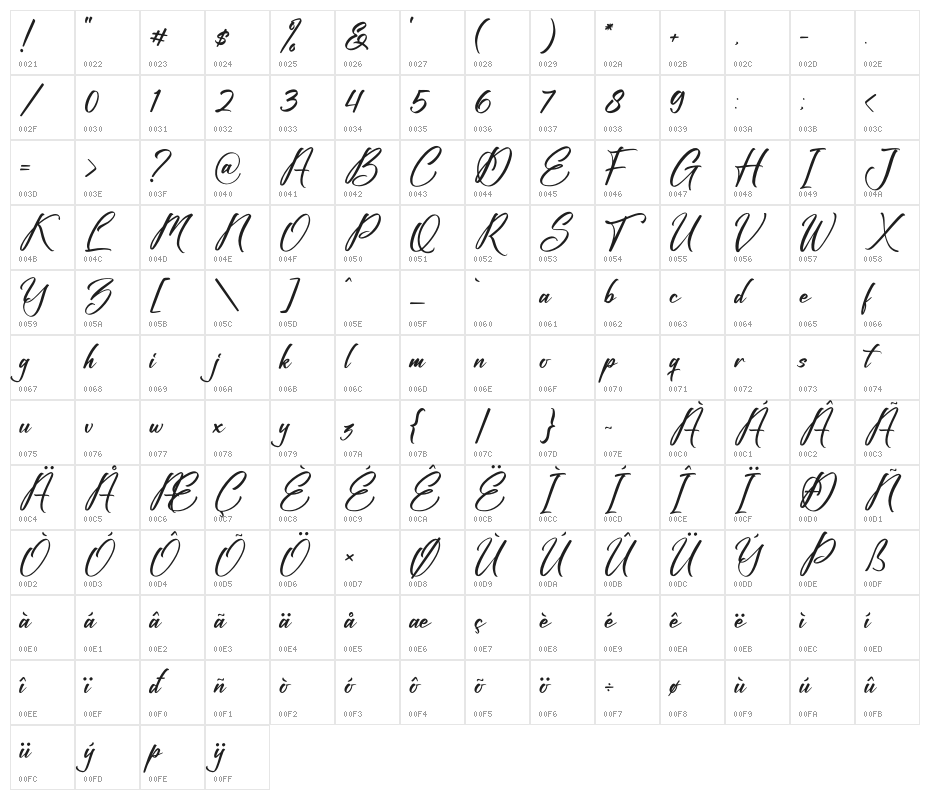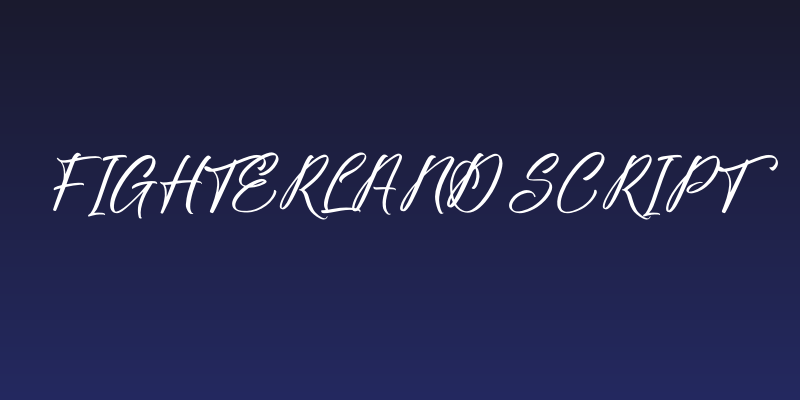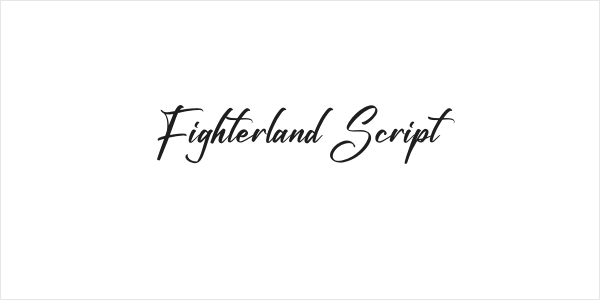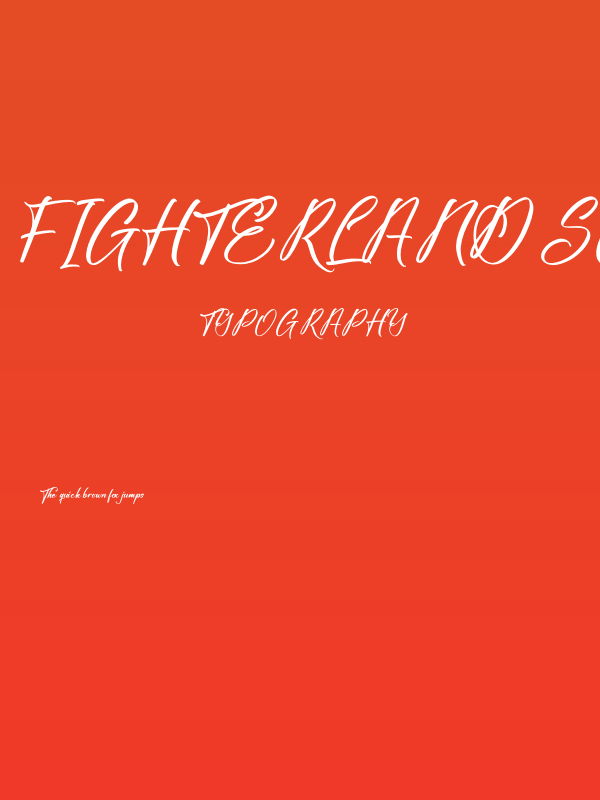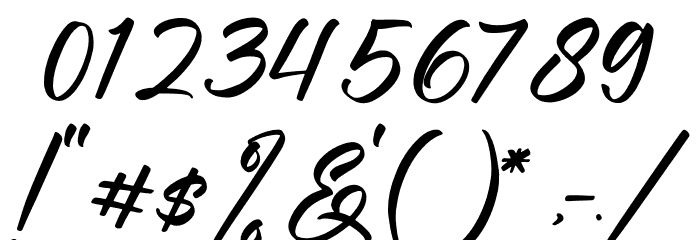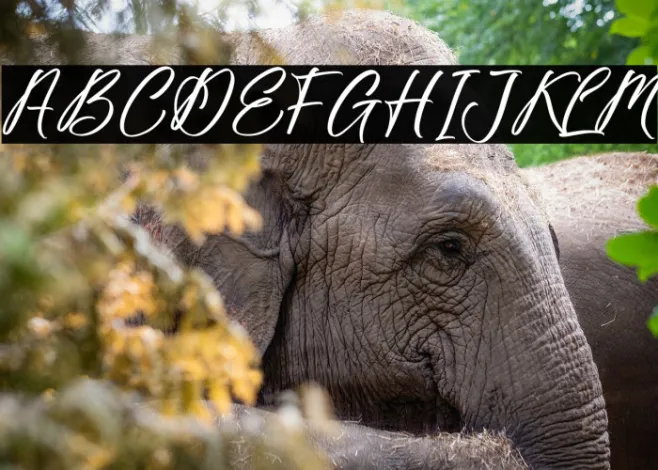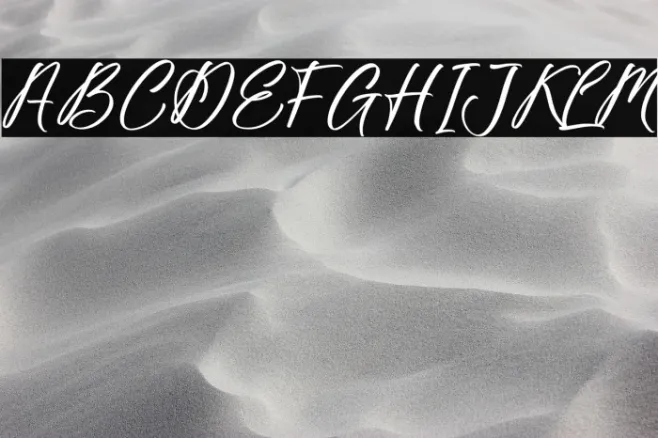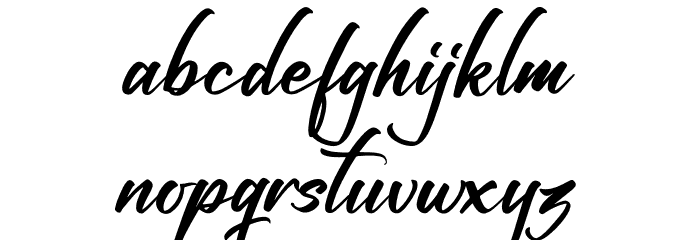
Fighterland Script Font
Fighterland Script Description
This font exudes a dynamic and elegant script style, characterized by its fluid and cursive letterforms. The uppercase letters are bold and sweeping, with a sense of movement and flair, while the lowercase letters maintain a consistent flow with smooth, rounded edges. The numerals are equally stylized, matching the overall aesthetic with their curvaceous and artistic design. Special characters are thoughtfully integrated, maintaining the script's cohesive look. This font is perfect for projects that require a touch of sophistication and creativity, such as invitations, branding, and artistic designs.
| Overall Style | Elegant, Artistic |
| Use Case | Logos, Invitations, Artistic designs |
| Proposed Projects | Ideal for wedding invitations, branding, logos, and artistic projects. |